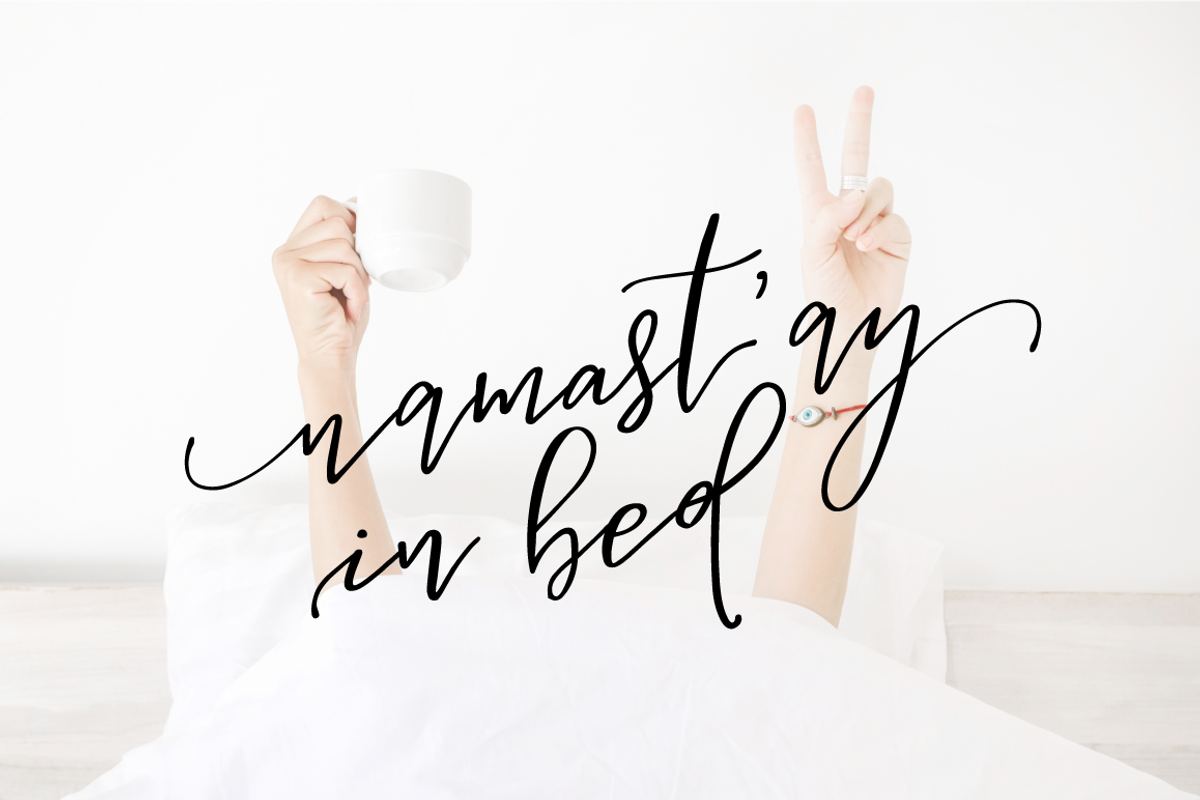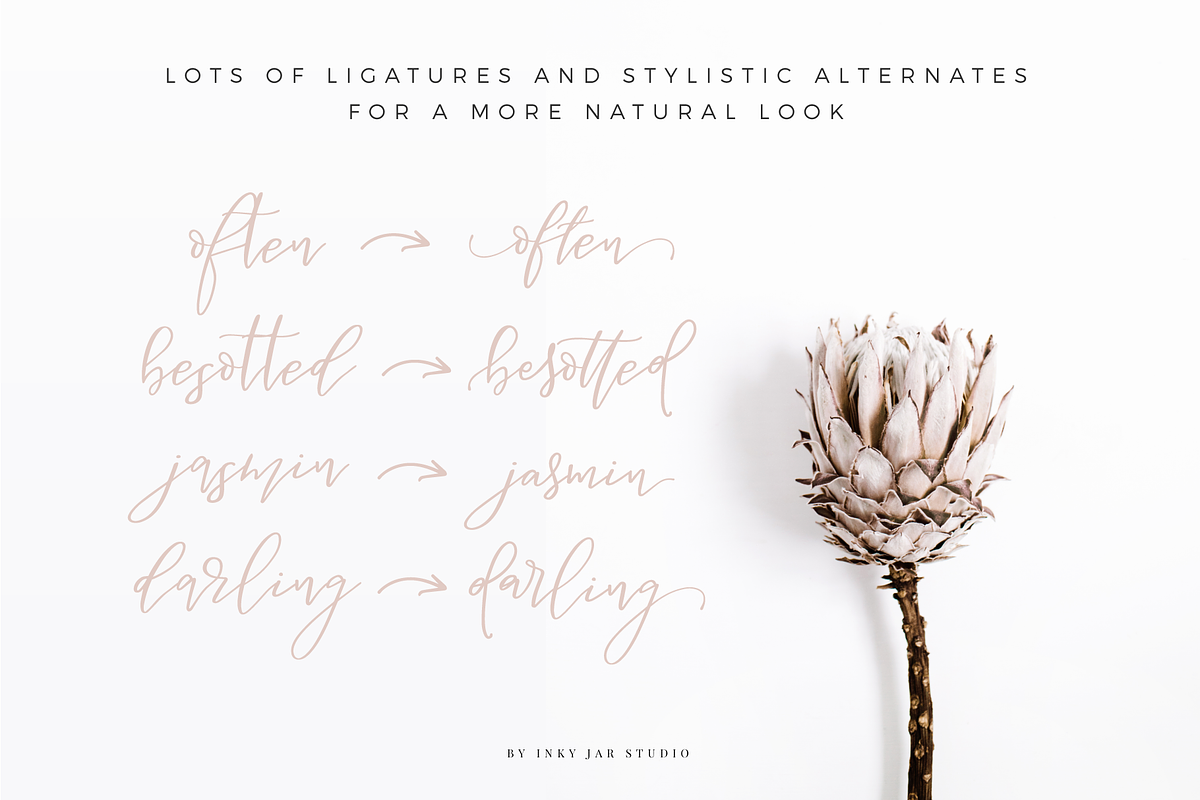
Besotted Modern Calligraphy Script
Besotted Modern Calligraphy font is gentle and feminine calligraphy font, perfect for woman entrepreneur branding or wedding stationery. It has 2 sets of beginning and ending swashes - a subtle ones for beginning and ending characters in one sentence and more curly ones for highlighting particular word (such as for branding purposes for example).
Bonus: It has a lot of ligatures, in order to give more natural, handwritten look and less machine-like look.